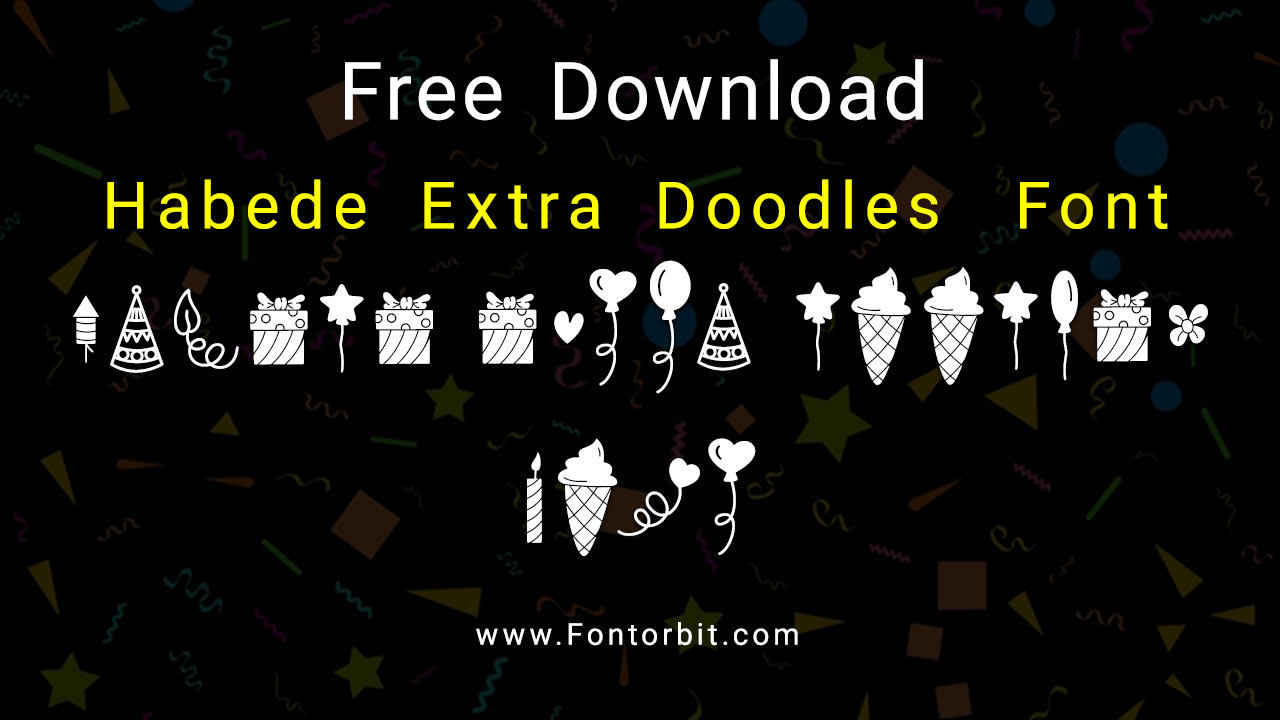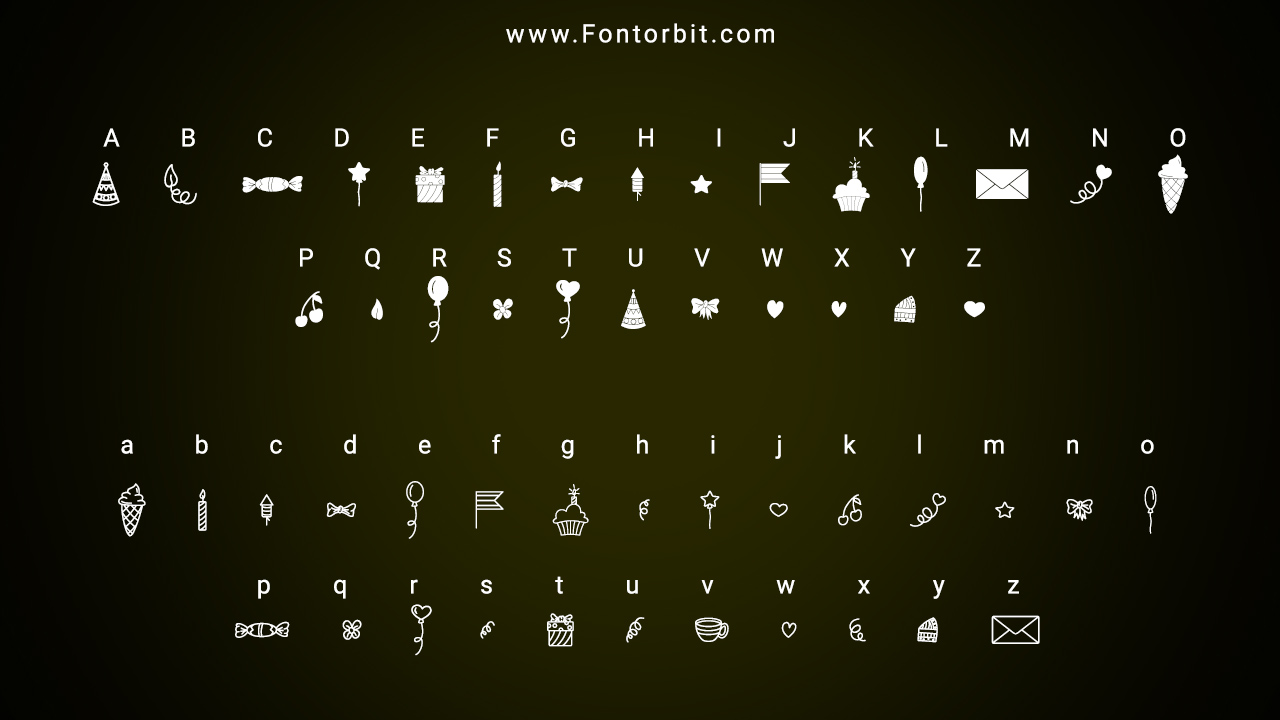
Habede Extra Doodles Font is a Dingbat-type font created by 7NTypes. Released on November 8, 2018, this charming dingbat-style typeface brings a playful edge to any design.
With its unique blend of icons and versatile application, Habede Extra Doodles adds a distinctive touch to a wide range of projects, from professional branding to whimsical personal creations. Discover how this font can enhance your designs with its creative flair and unique character set.
The Habede Extra Doodles Font Found In Use:
Check various design portfolios, branding projects, and web design examples to see Habede Extra Doodles. It’s often used for its distinctive, playful icons and stylish dingbats.
Habede Extra Doodles is a versatile dingbat font by 7NTypes. It is perfect for adding a unique, edgy flair to a variety of design projects. Its diverse applications make it suitable for both professional and creative uses.
3.Is Habede Extra Doodles Readable?
Yes, the font features a sizable character set and distinctive glyphs, making it easy to read and visually appealing.